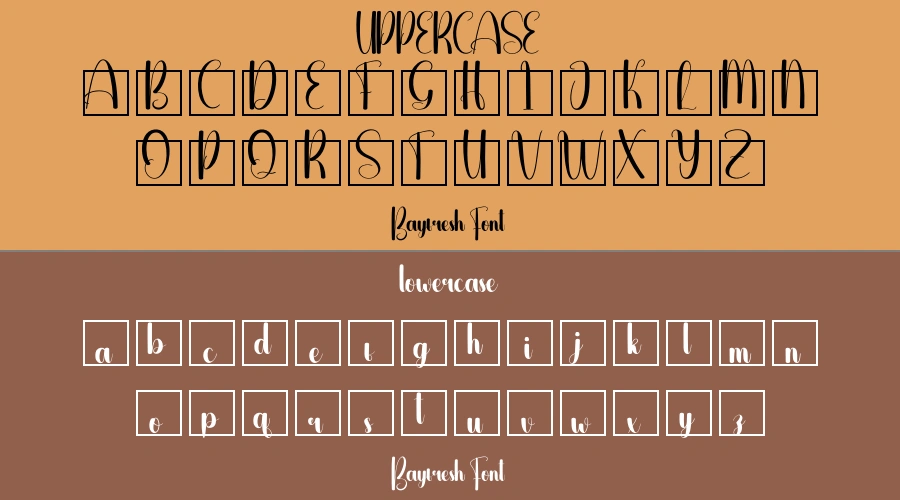
About Bayfresh Font
Bayfresh Font represents a sophisticated approach to type design, balancing precise alignment with adaptability. Perfect for logo design, this font family showcases impressive versatility and technical excellence throughout its character set. Designers appreciate its versatility and reliability.
Designers will appreciate nuanced touches including script connections and numerator/denominator, adding sophistication to any project. These features become apparent in colophons, where small text clarity matters most. The careful treatment of ear formation and aspirational quality ensures optimal performance.